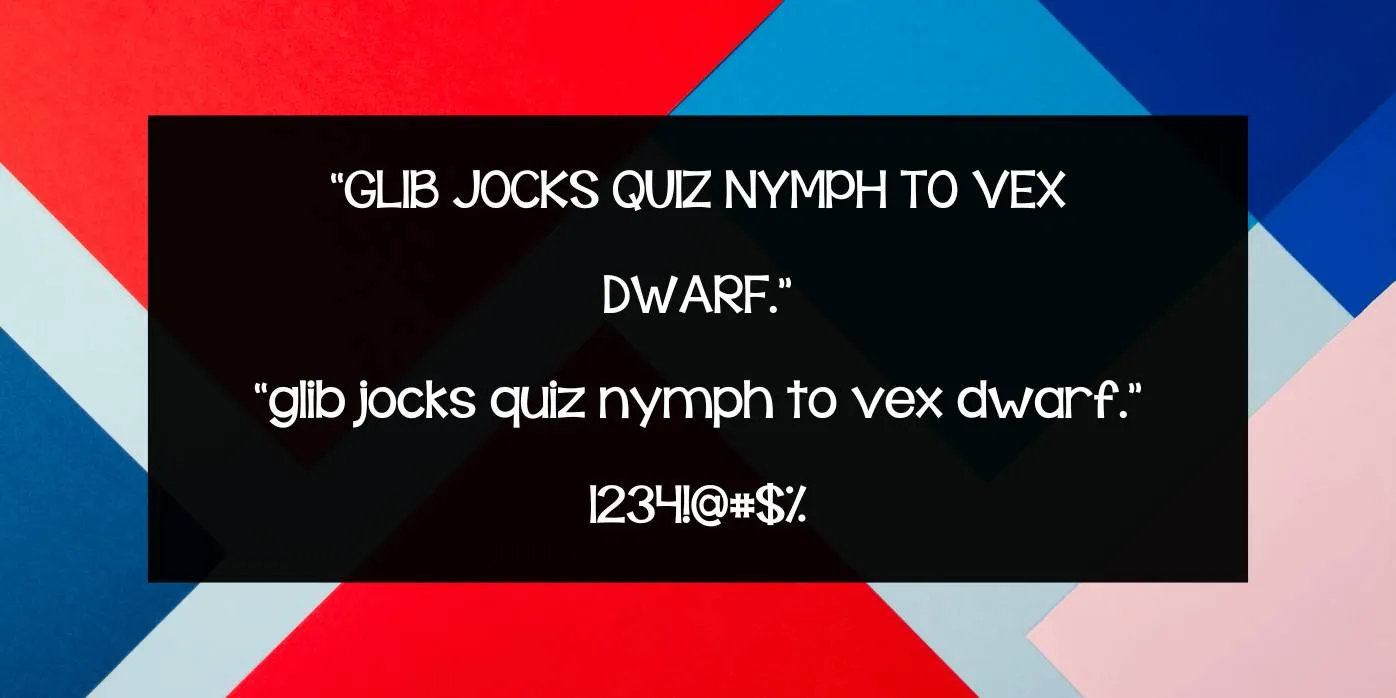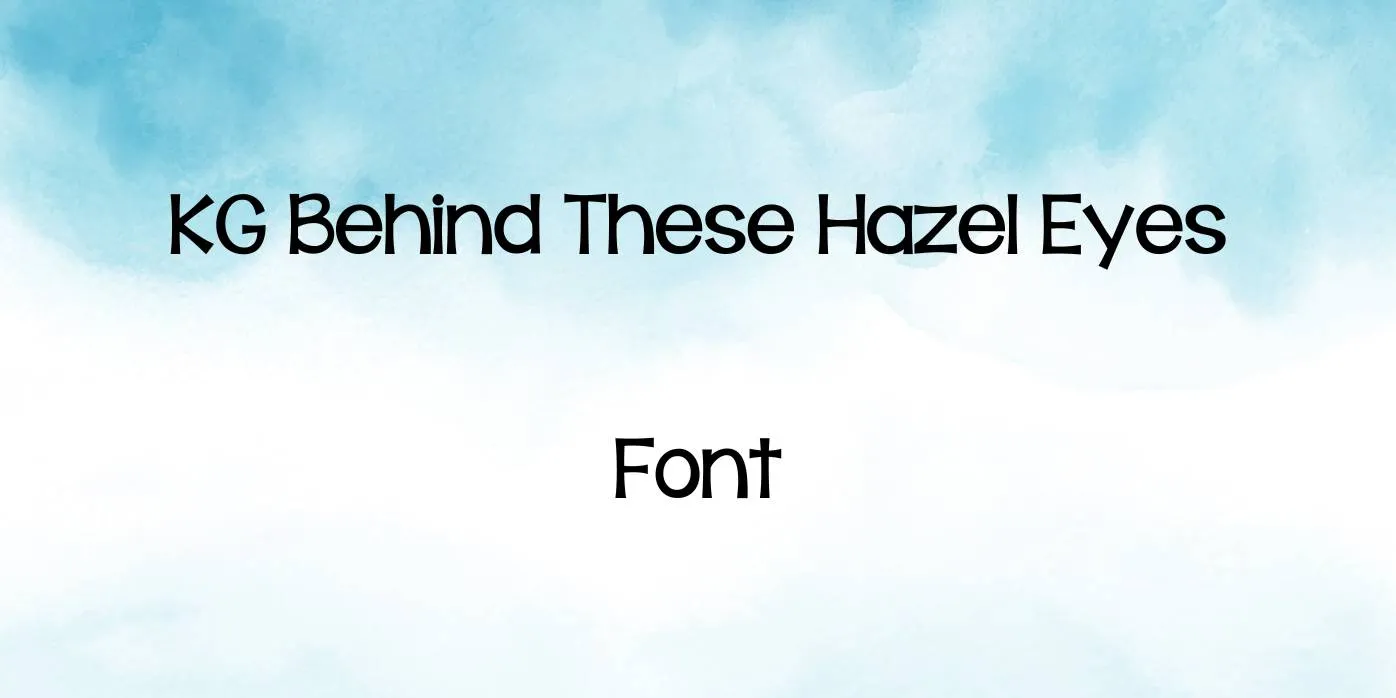
Kg Behind These Hazel Eyes Font
Kg Behind These Hazel Eyes Font is a fancy type of font. Kimberly Geswein is the designer of this typeface. There is one regular style for this typeface. The glyphs of this texture are 407 in number. You can get this typeface in both OTF and TTF file formats.
The use of this typeface supports personal projects and designs. For industrial purposes, you need to buy a license for this typeface. Moreover, this texture has small, thin, and fantastic characters. This typeface has a fine use in PCs, Android,  IOS, Laptops, Linux, Mac OS, Windows, Palmtops, and many more to explore.